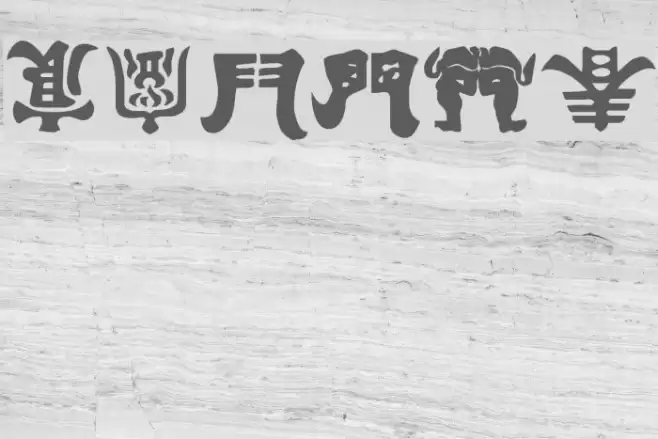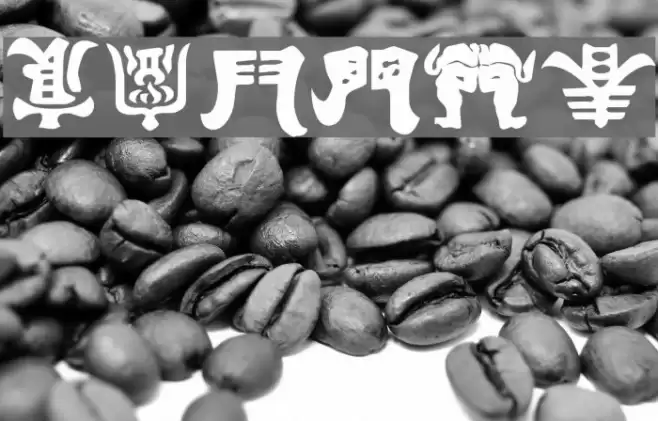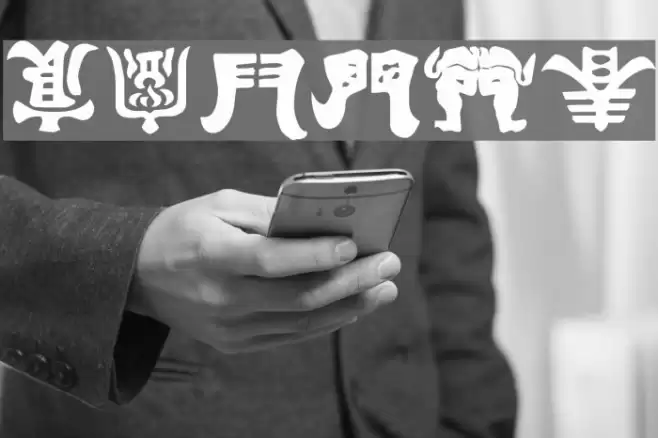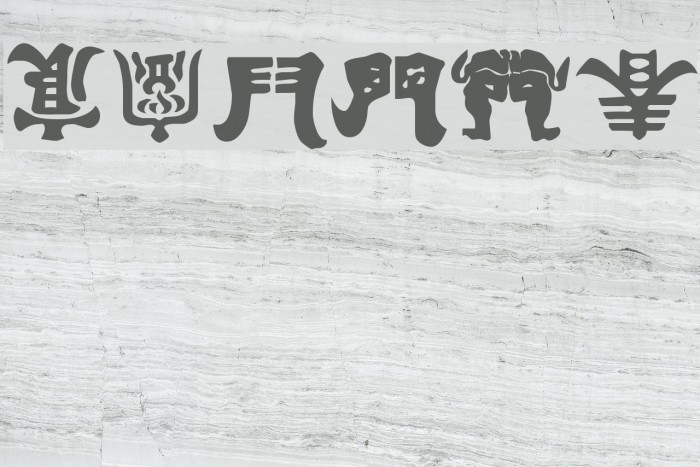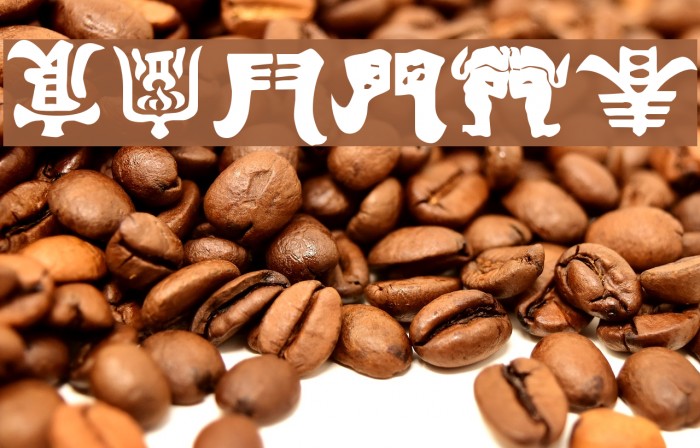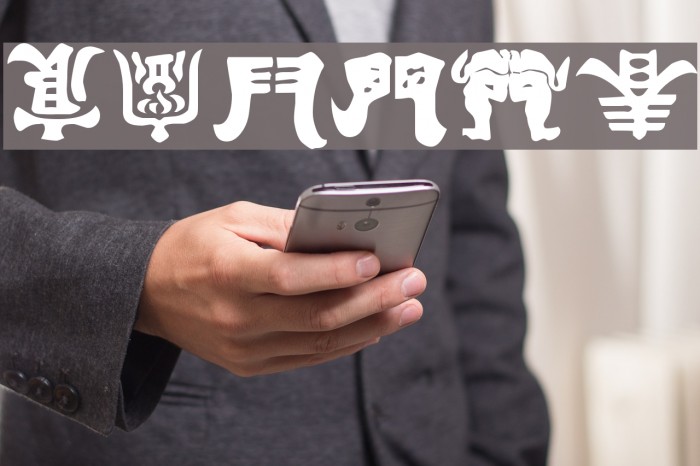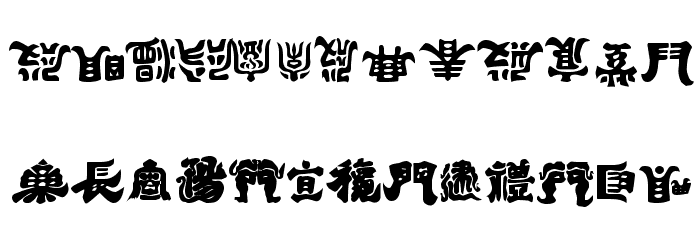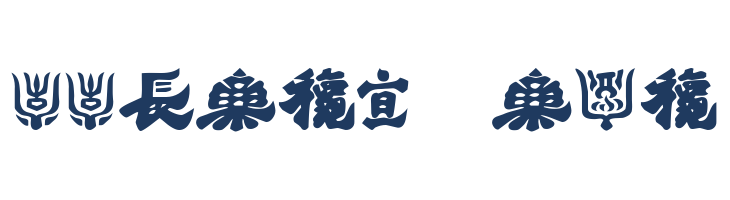
Kemuri Font
Kemuri Description
This font features a highly decorative and intricate design, reminiscent of ancient script or hieroglyphs. Each character is uniquely stylized with elaborate curves and lines, creating a sense of mystery and historical depth. The bold strokes and complex patterns suggest a ceremonial or artistic purpose, making it stand out as a statement piece. The font's ornate nature makes it less suitable for body text but ideal for artistic projects where a dramatic and exotic flair is desired.
An intricate, decorative font with an ancient, hieroglyphic style from Non-Latin fonts.
- Proposed Projects: Ideal for use in artistic designs, ceremonial invitations, historical-themed posters, or any project requiring a dramatic and exotic aesthetic.
- Use Case: Logos, Posters, Artistic Designs